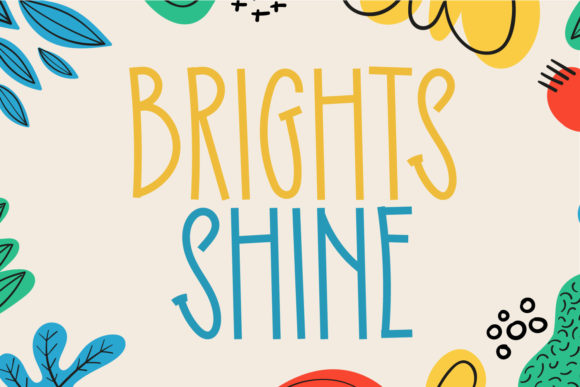
Introducing Bright Shine Font: Your Gateway to Enchanting Creations!
Unleash your creativity with Bright Shine Font, a display font that exudes playfulness and charm. Picture this: words that dance across your screen, each letter a vibrant burst of color, captivating your audience with their cheerful energy. Whether you're crafting eye-catching posters, designing invitations that sparkle with joy, or creating social media posts that demand attention, Bright Shine Font is your secret weapon.
Dive into a world where imagination knows no bounds. Bright Shine Font's playful nature lends itself perfectly to any project that calls for a touch of whimsy. Use it to design greeting cards that make hearts flutter, personalized gifts that bring smiles to faces, or website headers that radiate positivity. With Bright Shine Font, the possibilities are endless.
But what truly sets Bright Shine Font apart is its versatility. This font is not just for kids' projects or playful designs. Its subtle elegance makes it suitable for professional presentations, polished reports, and sophisticated marketing materials. Its clean lines and easy-to-read nature ensure that your message is conveyed with clarity and impact.
So, why settle for ordinary fonts when you can unleash the magic of Bright Shine Font? Its cheerful disposition and boundless versatility will transform your creative projects into captivating masterpieces. Embrace the joy of Bright Shine Font and let your imagination soar!